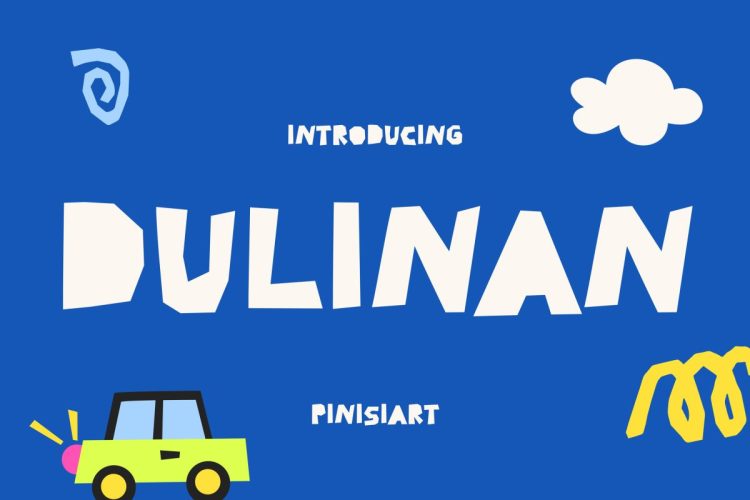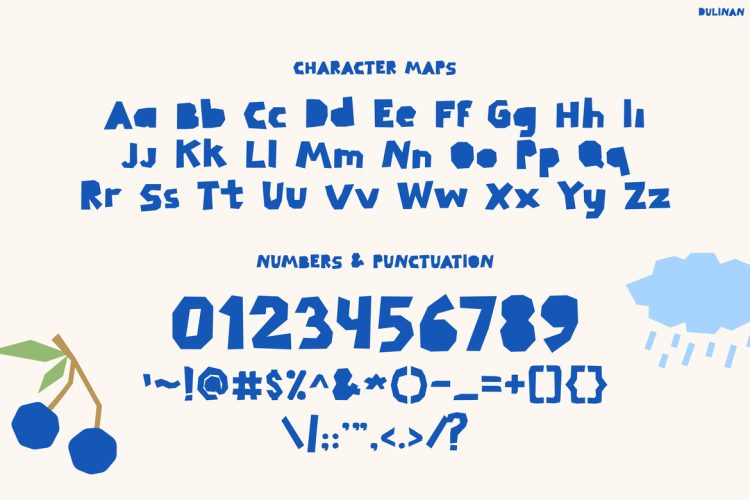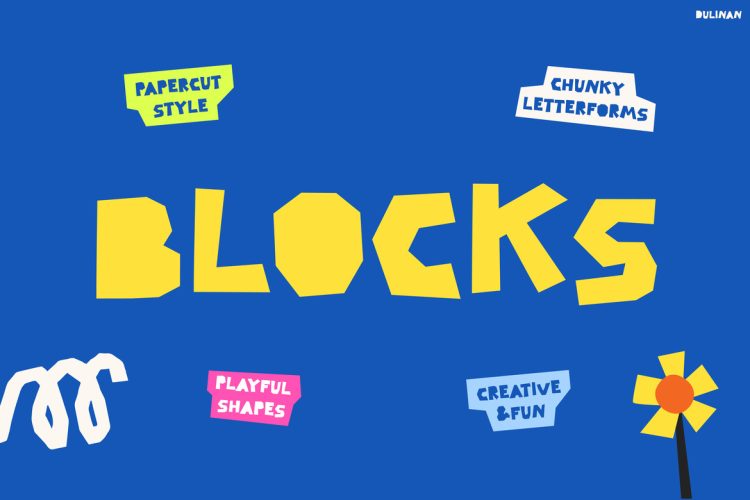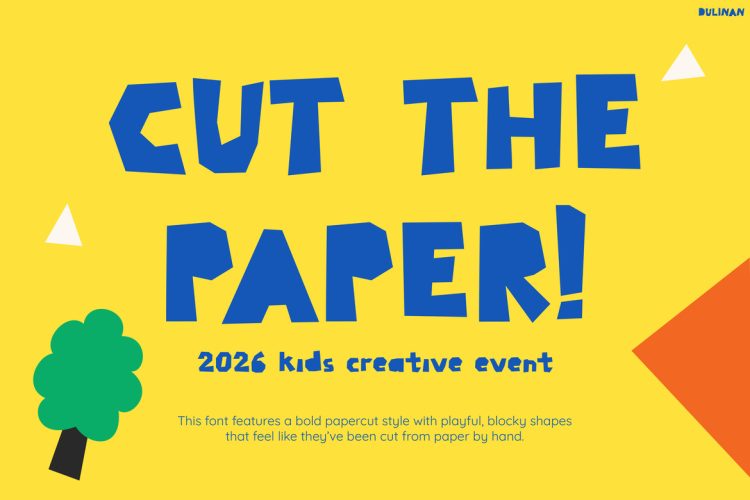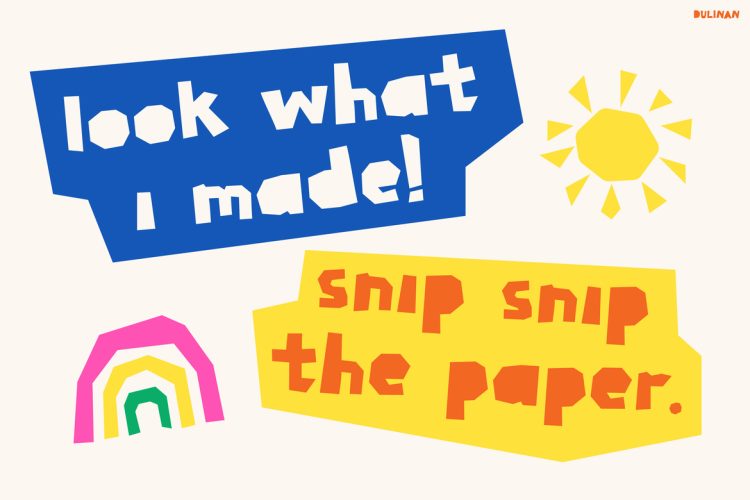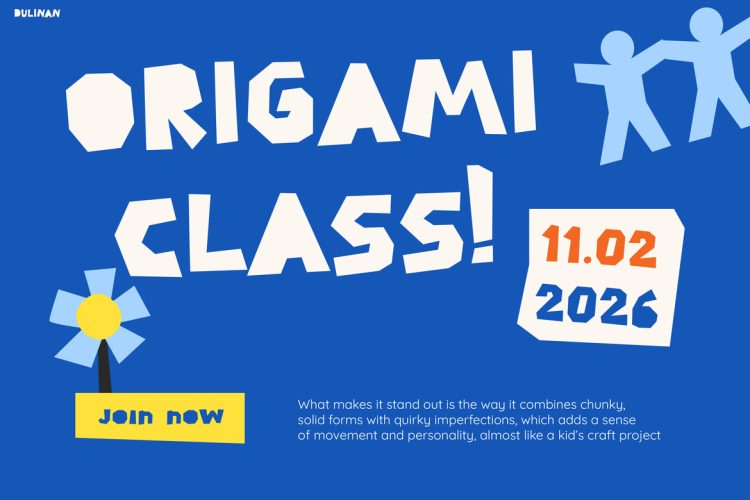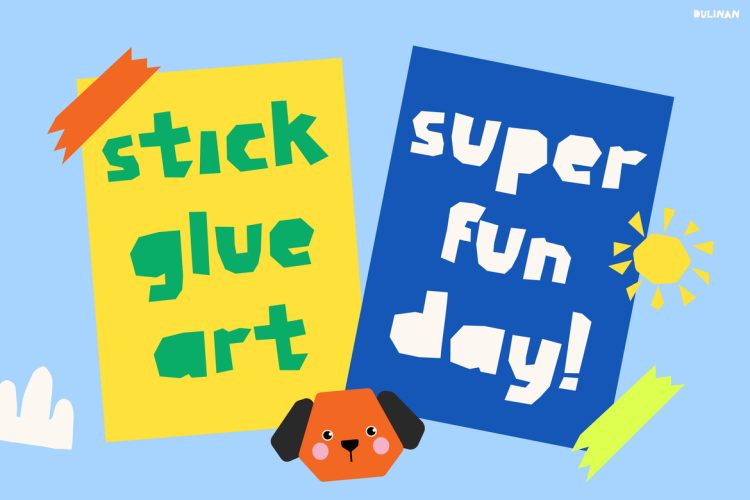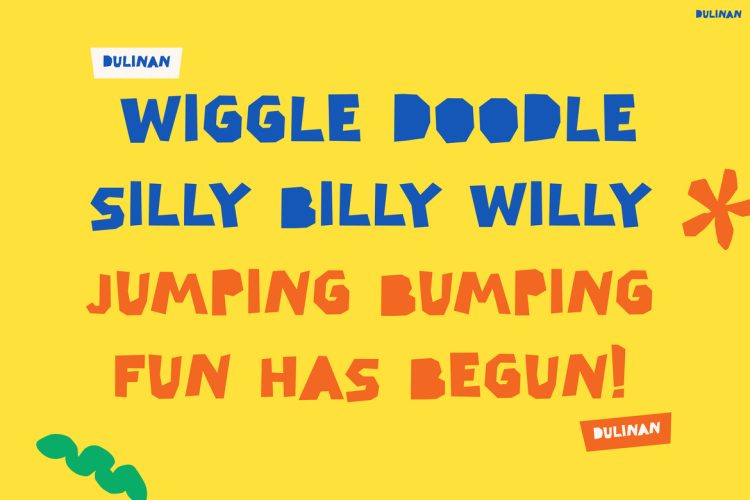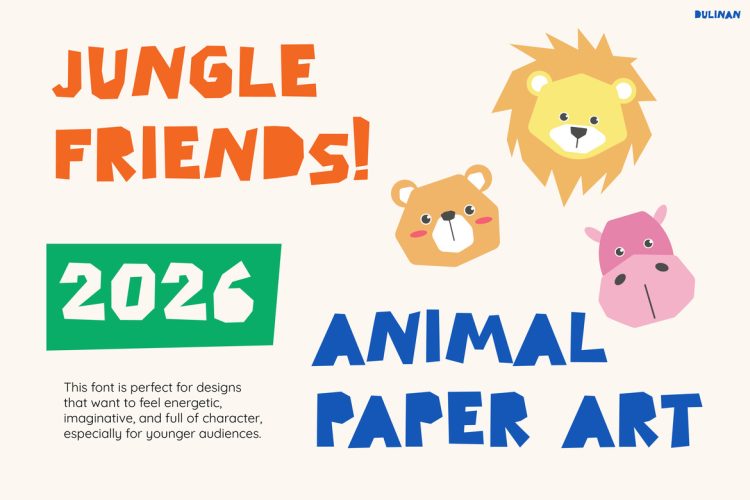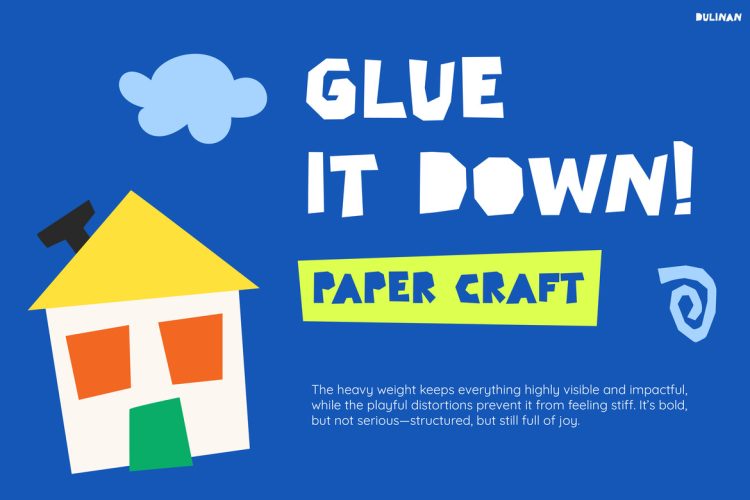
Dulinan โ Playful Kids Display Font
Kids Font Dulinan is a cheerful, hand-drawn display typeface that instantly brings fun, creativity, and warmth into any design. Not only does it feature irregular, bouncy letterforms, but it also creates a lively visual rhythm that feels natural and expressive. Moreover, its bold shapes and playful structure make every word stand out effortlessly. Because of its charming imperfections and chunky style, this font delivers a unique aesthetic that feels both authentic and engaging. As a result, it becomes a perfect choice for designs that aim to capture attention while maintaining readability.
Kids Font Dulinan captures the spirit of playful learning and imaginative exploration. In addition, each character is carefully crafted with a handmade feel, which gives your designs a friendly and approachable tone. Furthermore, the font adapts easily to various creative layouts, whether for bold headlines or decorative compositions. Not only that, but its thick strokes and balanced spacing also ensure strong visibility across both print and digital formats. Consequently, your designs will look vibrant, dynamic, and highly engaging. At the same time, it pairs beautifully with bright colors, soft pastels, or even minimal palettes, making it extremely versatile.
This font is ideal for designers, educators, and content creators who want to communicate joy and creativity. For instance, it works perfectly for kids-related projects such as educational materials, storybooks, and classroom decorations. In addition, it is highly suitable for posters, toy packaging, and playful branding. Likewise, it performs exceptionally well in social media graphics, event flyers, and birthday invitations. Therefore, if your target audience includes children, parents, or creative communities, this font will connect with them naturally and effectively.
Final Thought